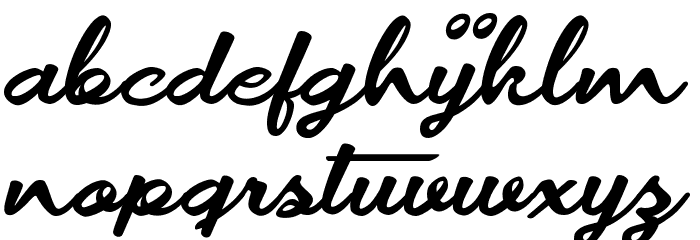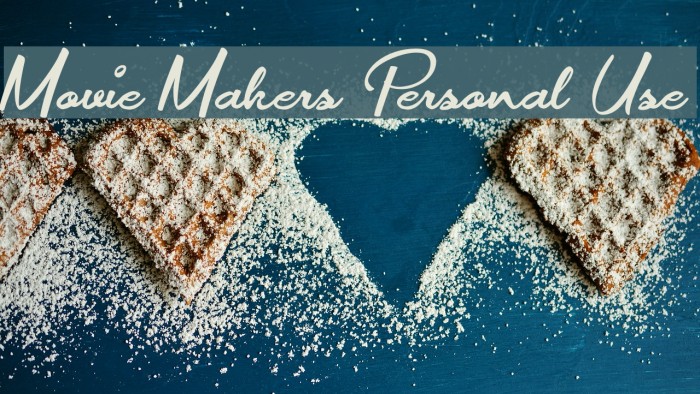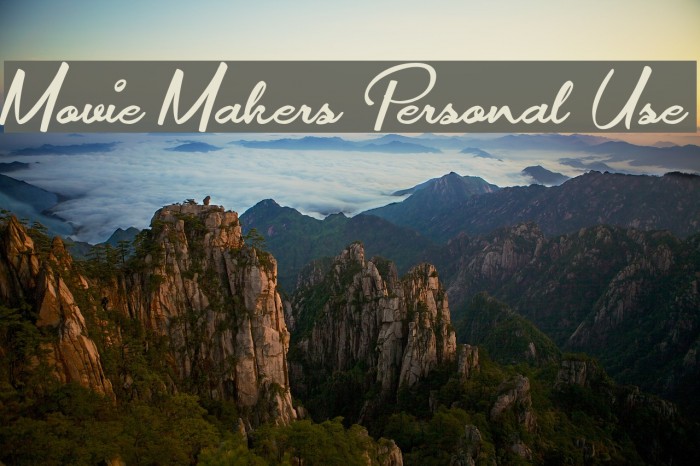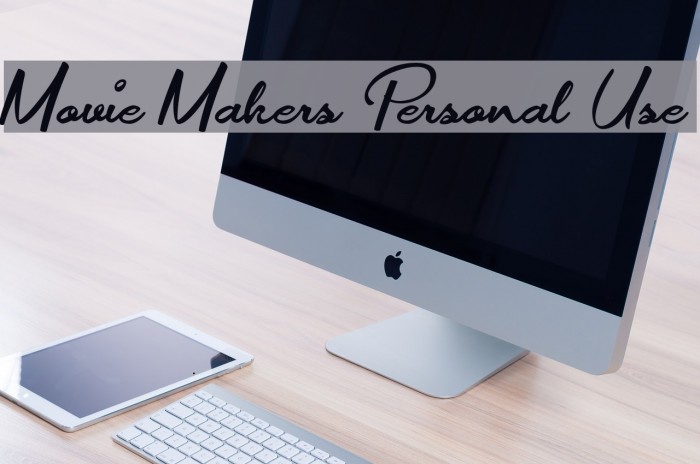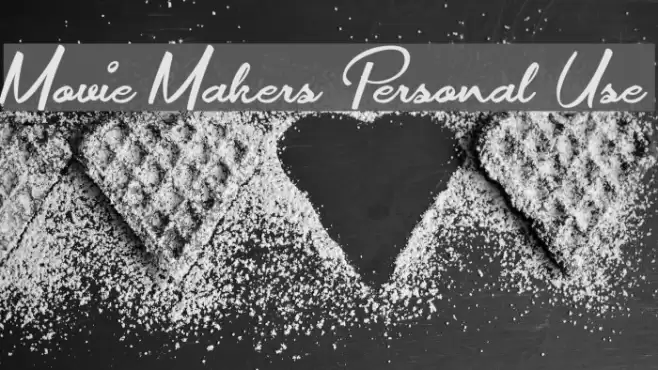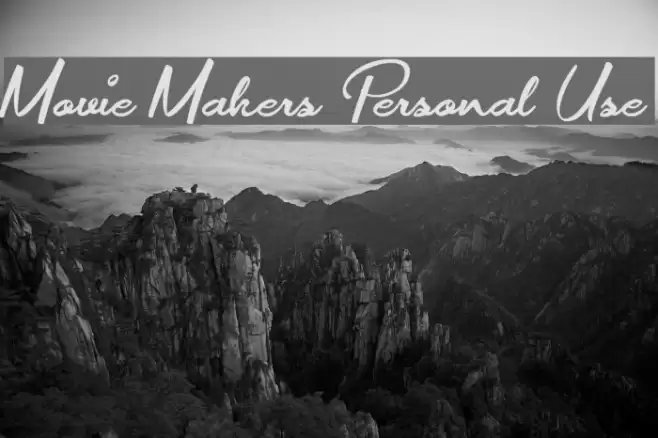
Movie Makers Personal Use Font
This font features a dynamic and flowing script style, characterized by its elegant and connected letterforms. The uppercase letters exhibit a sophisticated flair with smooth curves and a slight slant, giving them a sense of motion and grace. The lowercase letters maintain a consistent connection, enhancing the cursive aesthetic. The font's overall appearance is both stylish and legible, making it suitable for various creative applications. The special characters are seamlessly integrated, maintaining the font's cohesive look. This font is ideal for projects that require a personal touch, such as invitations, greeting cards, or branding materials.
A dynamic and flowing script font with elegant, connected letterforms.
- Proposed Projects: Ideal for invitations, greeting cards, branding, and personal projects.
- Category: Script
- Overall Style: Elegant
- Use Case: Logos, Invitations, Greeting Cards